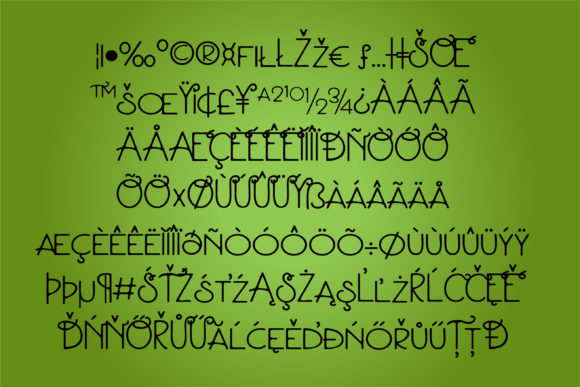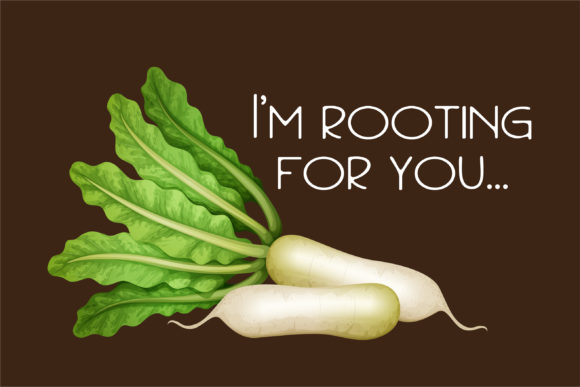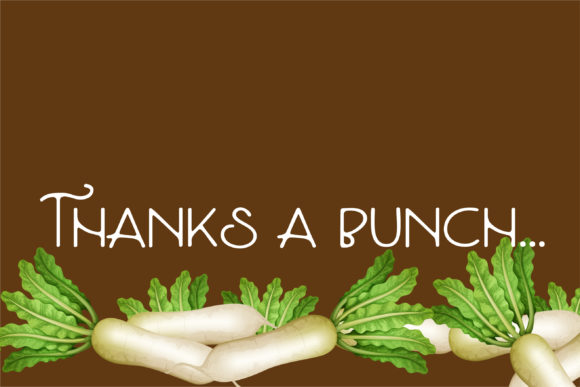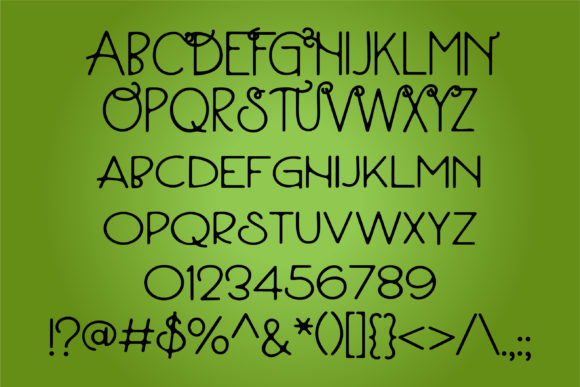
As a designer, you know the thrill of hitting that perfect note in your creative project. The type of moment when everything falls into place, and your design shines with a level of sophistication and elegance. For me, that moment came when I discovered the Parsnipity Font. This stunning sans serif font has a unique flair that sets it apart from other design resources.
With its taller uppercase letters flourished to perfection and a more subtle lowercase, the Parsnipity Font is a valuable addition to any designer’s toolkit. Imagine having a font that can elevate your designs with a touch of sophistication, perfect for creating a high-quality visual identity for your clients or a personal creative project. The Parsnipity Font is available for free download, making it an accessible design resource for designers of all levels.
- Designed with a unique aesthetic, making it perfect for modern and minimalist designs
- Includes a range of characters, including uppercase and lowercase letters, numbers, and punctuation
I recently had the chance to try out the Parsnipity Font, and I must say it’s been a great addition to my design resource collection. The high quality of the font is immediately noticeable, making it perfect for any creative project that requires a unique touch.
- ✨ Its versatility in terms of font size and style, making it suitable for a wide range of applications.
- ⚠️ The font may not be suitable for projects that require extreme scalability, as it can become pixelated at very large sizes.
Overall, I’m really impressed with the Parsnipity Font and would definitely recommend it to fellow designers. It’s a great design resource that can add a touch of creativity to any project.
For getting the most out of Parsnipity Font, use it for designing graphics with a transparent background. You can also use it for creating titles, headings, and body text in presentations and documents. Common use cases include designing social media graphics, creating business cards, and making presentations for events.
The recommended font size for optimal readability with the Parsnipity Font is between 12-24 points, depending on the design context and the desired level of legibility. However, feel free to experiment with different font sizes to find the perfect fit for your design project.